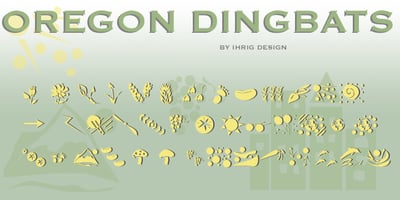
Oregon Dingbat
Oregon Dingbat font
Oregon Dingbat Font Family was designed by published by Mark Ihrig. Oregon Dingbat contains 1 styles and family package options. The Oregon Dingbat Font was created in 1995. It consists of various pictures including plants, footprints, a skyscraper and various forms of nature. The font has been published in Japan’s HyperLib magazine and used as artwork in a novel by Charlotte Vale Allen.